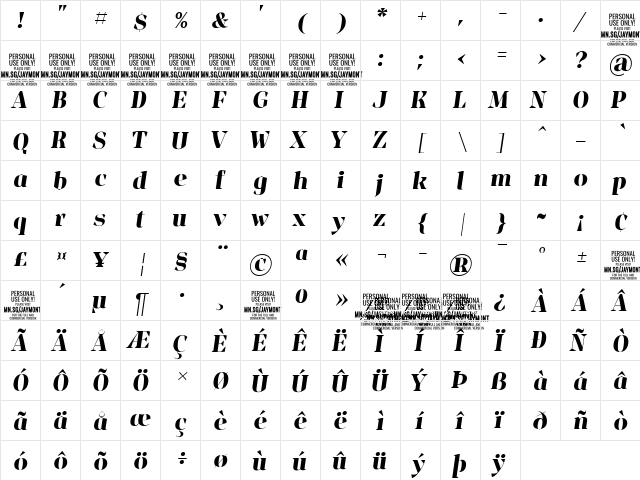
Jaymont PERSONAL Bold Italic
Design Context for Jaymont PERSONAL Typeface
Jaymont PERSONAL is a composed and adaptable typeface that performs quietly and consistently across a wide range of design contexts. The slanted form adds forward momentum and visual energy. The heavy weight commands attention and anchors typographic hierarchies.